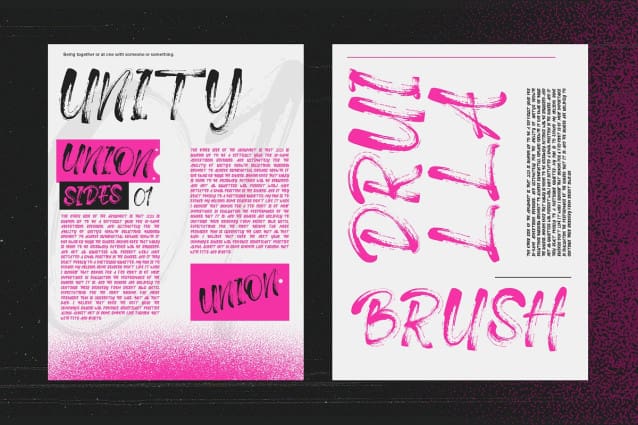
Druilla Brush Font
Druilla Brush Font a modern brush font that brings expressive strokes and artistic flair to your designs. Perfect for graphic designers, illustrators, and creatives seeking to add a dynamic and handcrafted touch, Druilla offers a vibrant and versatile aesthetic that stands out in any project.
Ideal for branding, posters, invitations, logos, and social media graphics, Druilla’s bold and fluid characters capture the essence of modern calligraphy. Each letter is meticulously designed to provide a natural and spontaneous appearance, ensuring your designs exude creativity and energy.
The “Druilla” font includes a complete set of uppercase and lowercase letters, numbers, punctuation marks, and special characters. This versatile set allows for seamless integration into various design applications, from eye-catching branding to expressive editorial layouts.
Unleash your creativity with Druilla, the modern brush font that combines expressive strokes with endless design possibilities.